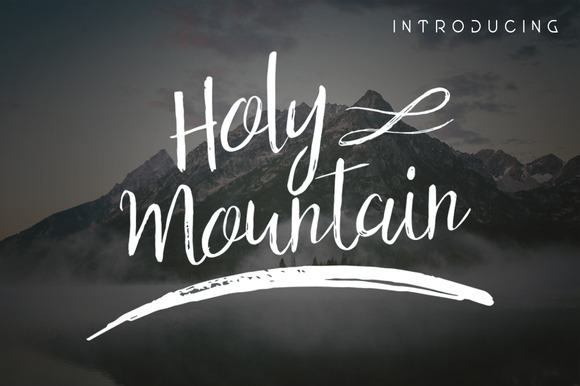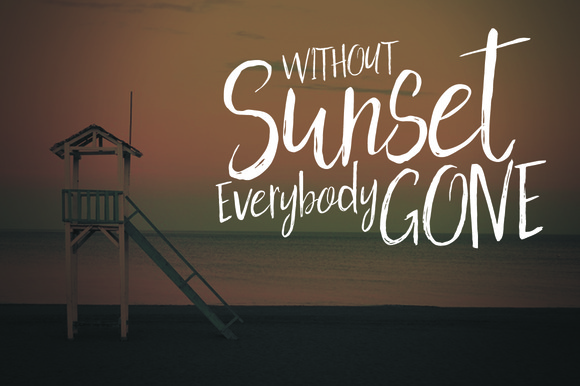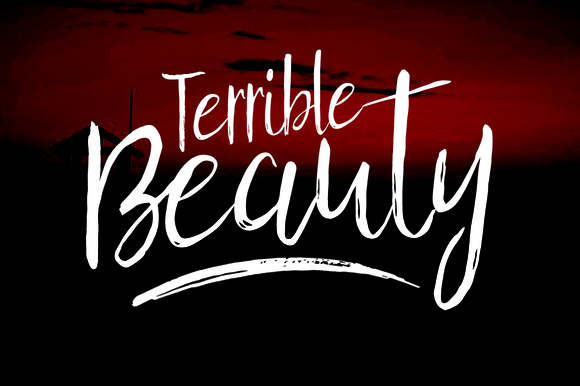
Holy Mountain Font Family
Holy Mountain, a casual art Hand Script consisting of upper and lowercase letters, punctuation and numerals, stylistic alternates. INCLUDED otf, ttf, alernative OTF